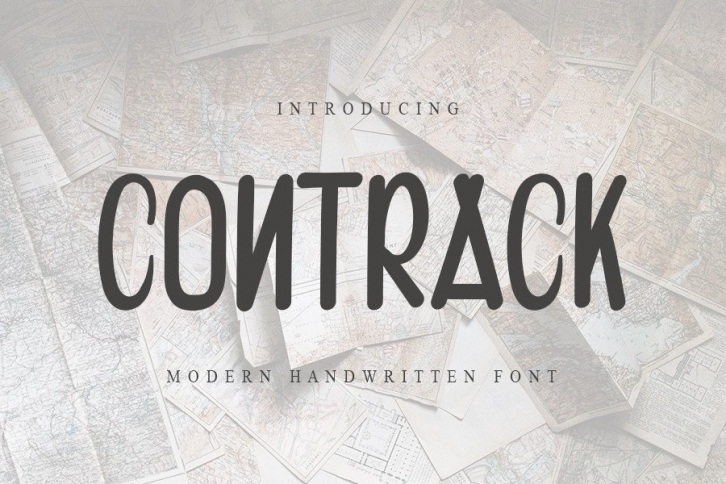
CONTRACK is a friendly handwritten font, carefully designed to become a true favorite. It maintains its classy calligraphic influences while feeling contemporary and fresh.